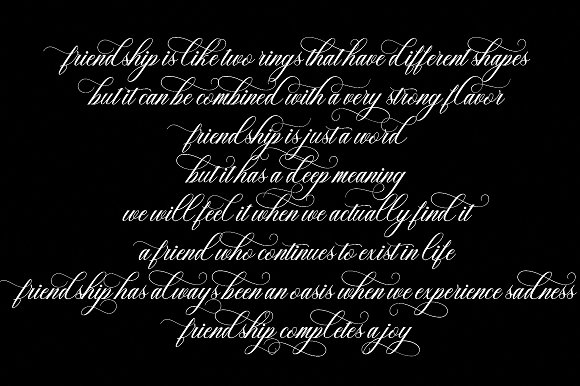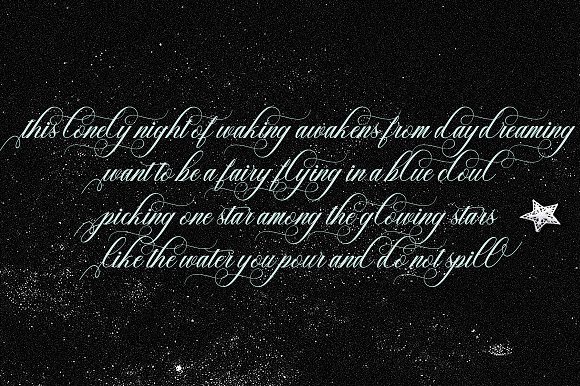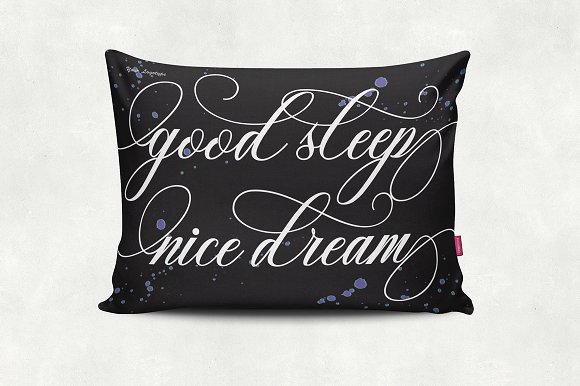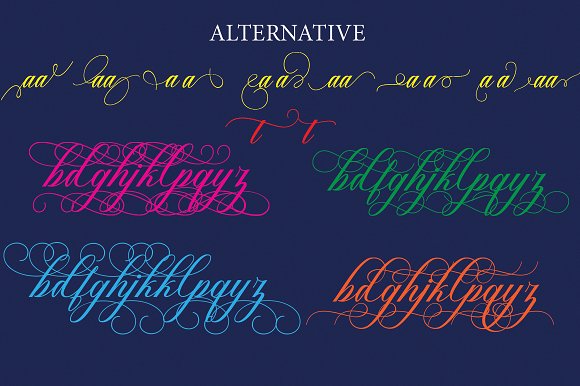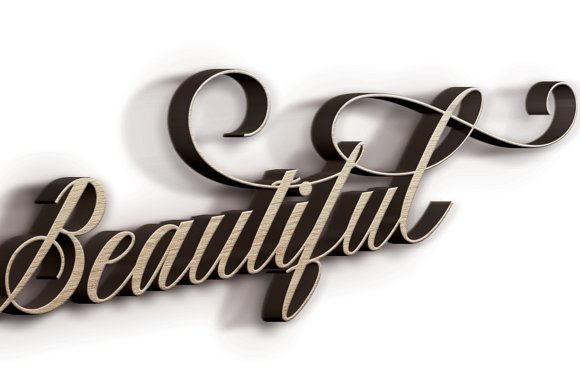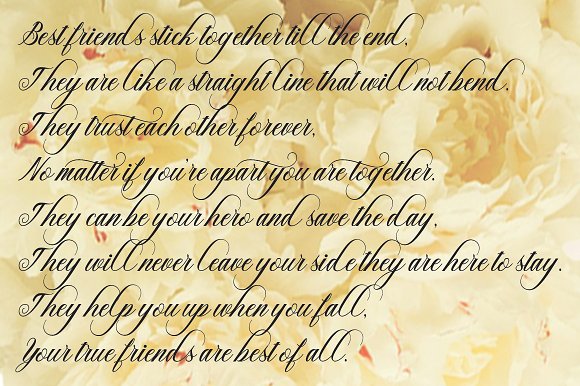
Sigarillos Font
Sigarillos is another lovely modern calligraphy typefaces, which is combining the style of classic calligraphy with an modern style. combines from copperplate to contemporary typeface with a dancing baseline, modern and elegant touch. Sigarillos features 427 glyphs and alternate characters Include . including initial and terminal letters, alternates,and multiple language support..